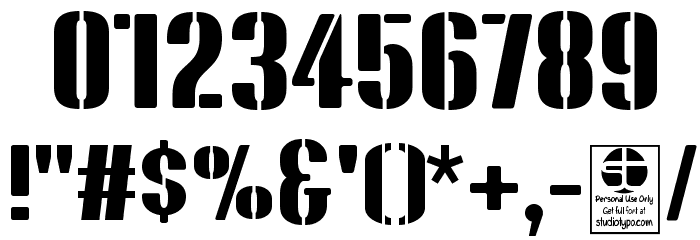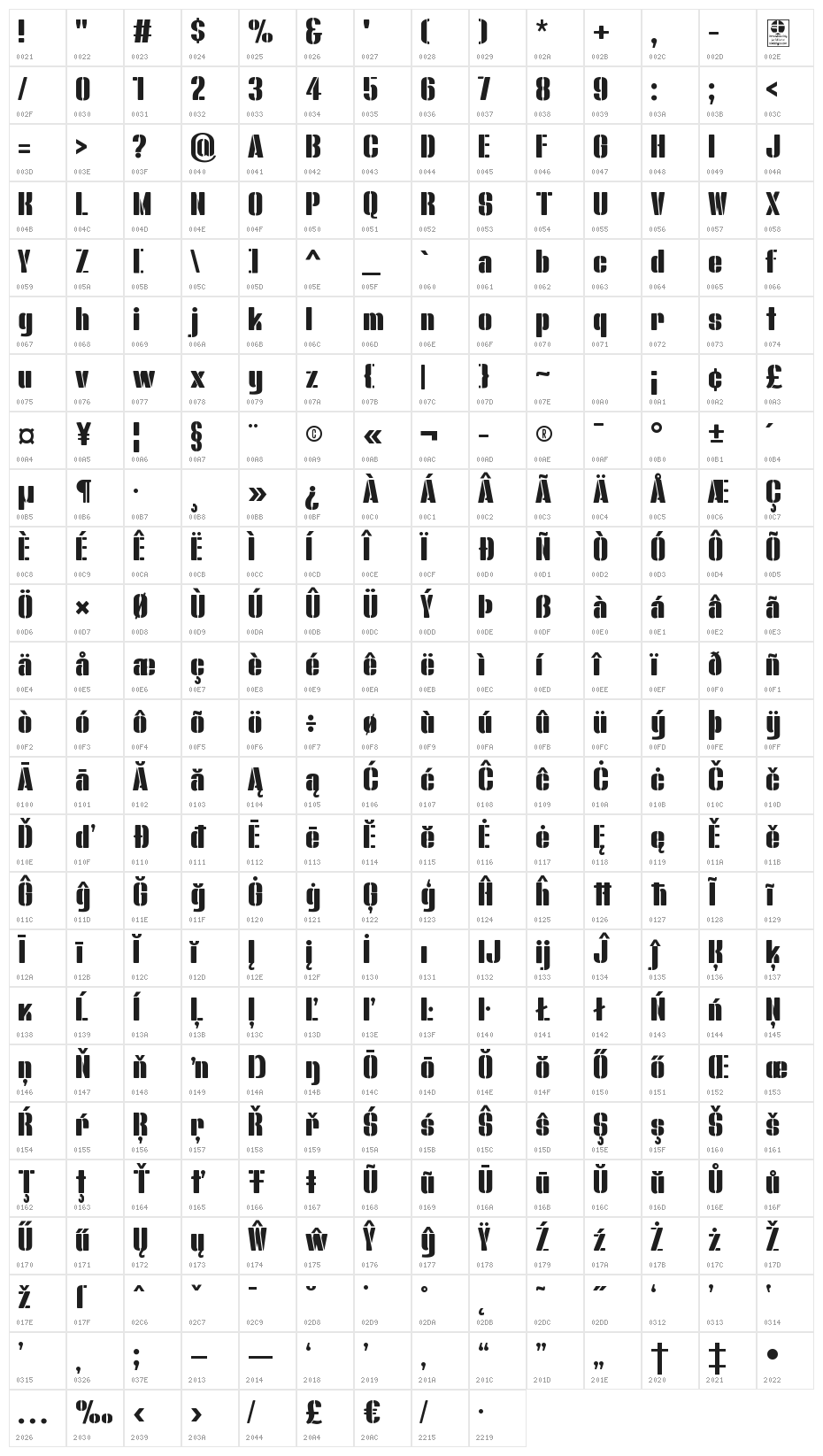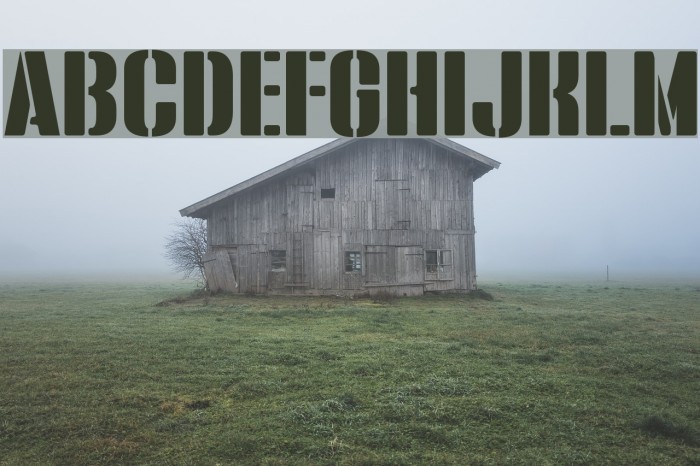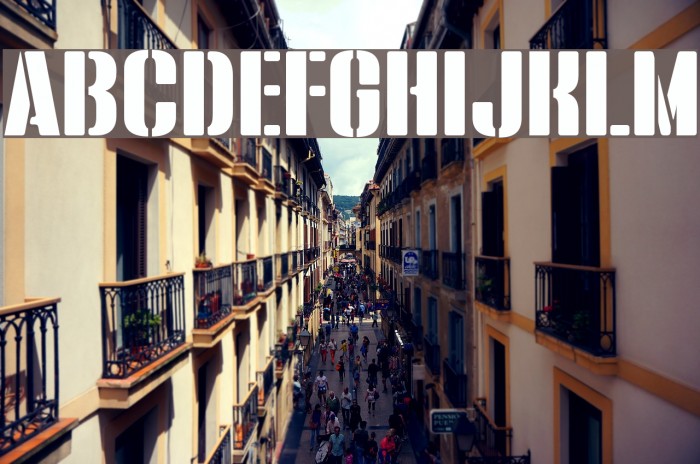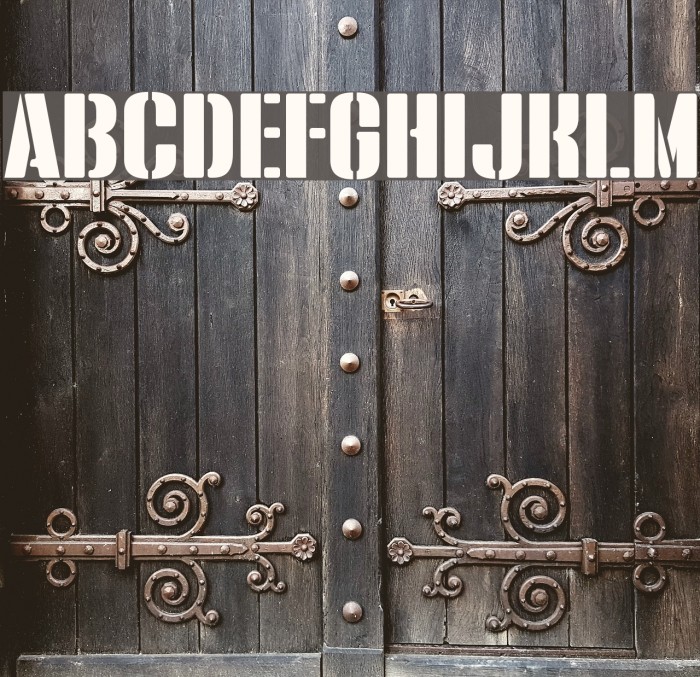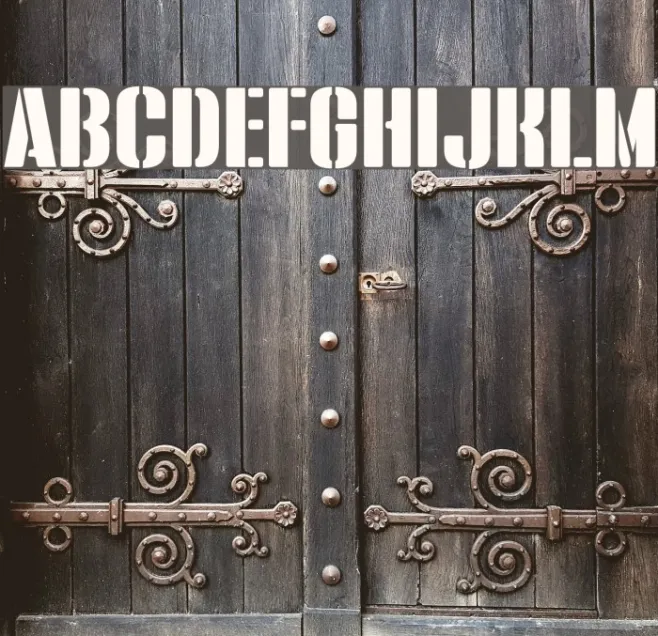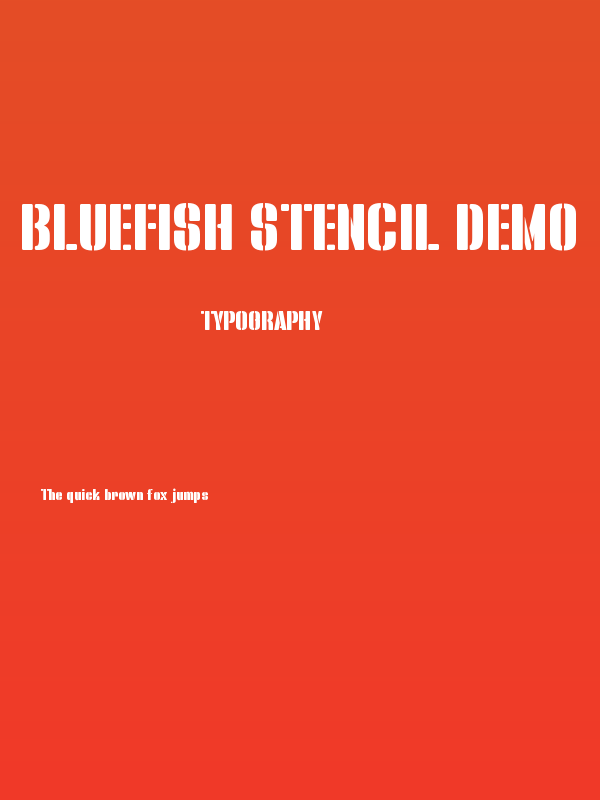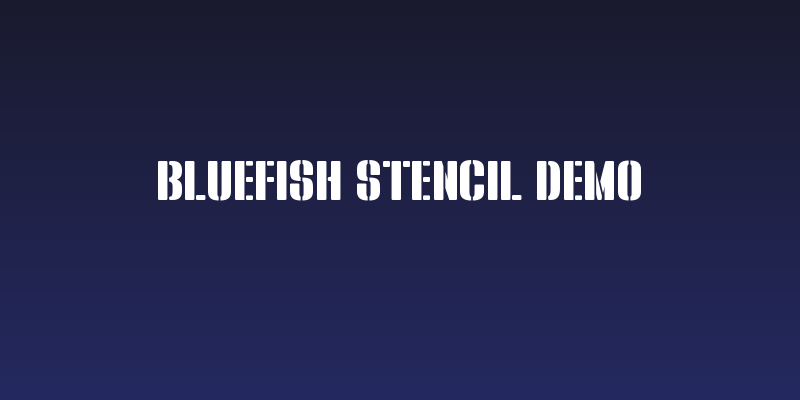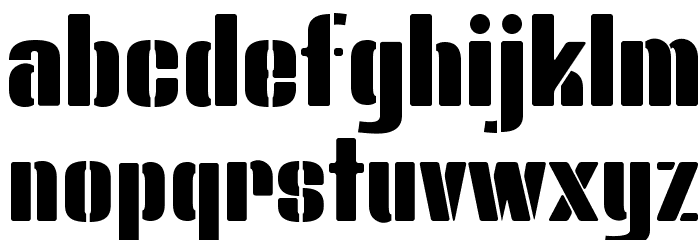
Bluefish STENCIL DEMO Font
Bluefish STENCIL DEMO Description
This font features a bold, stencil-inspired design with strong geometric shapes and clear cutouts, giving it a rugged and industrial feel. The uppercase and lowercase letters maintain a consistent width, creating a uniform appearance. The numbers and special characters follow the same stencil style, ensuring cohesion across all elements. The font's boldness and distinct cutouts make it highly legible and suitable for impactful designs.
| Overall Style | Industrial, Bold, Stencil |
| Use Case | Headlines, Logos, Posters, Signage |
| Proposed Projects | Ideal for military-themed designs, industrial branding, posters, and signage where a strong, bold statement is needed. |